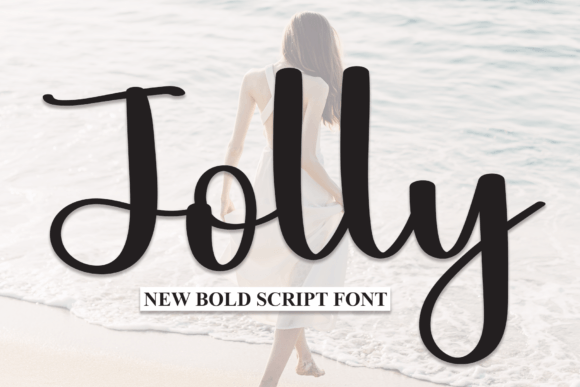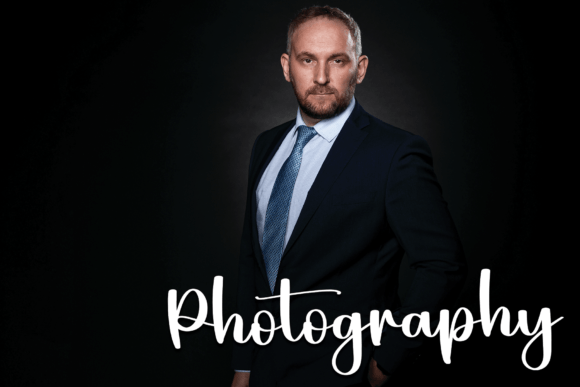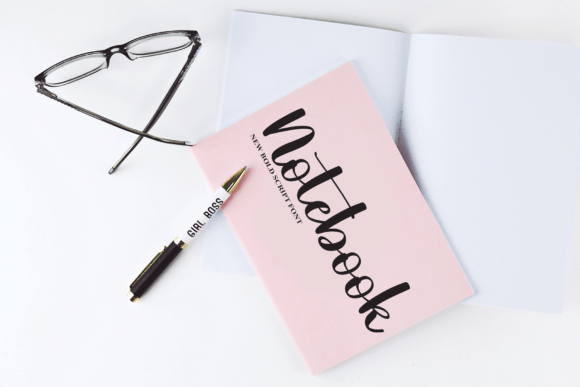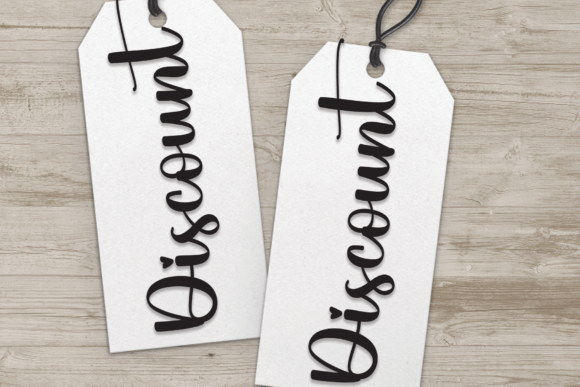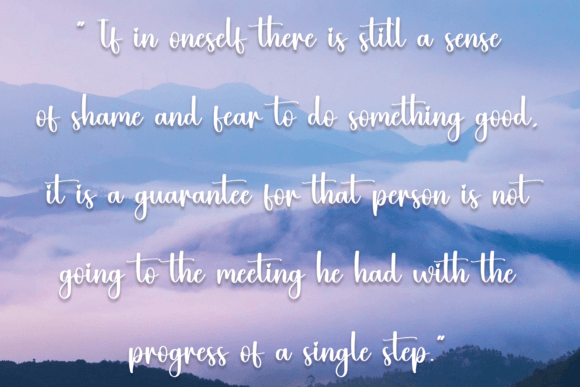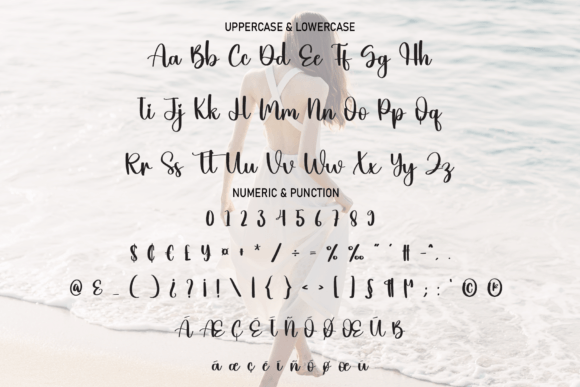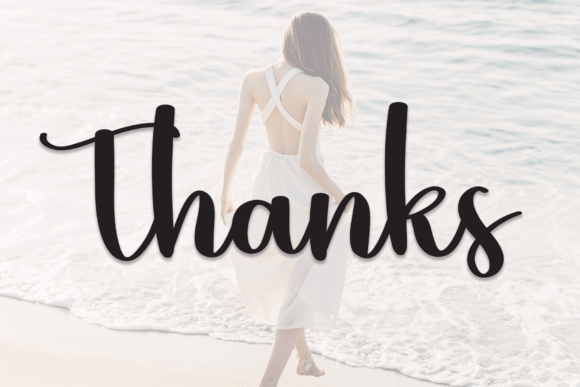
Jolly Font
About Jolly Font
The most recent style of this font introduces letters that are impeccably suited for a myriad of creative applications. Whether you’re envisioning commanding wall displays, enchanting wedding invitations, or eye-catching social media post logos, these letters bring a handwritten touch that adds a distinctive flair to your designs.
In the realm of advertising, these letters make a bold statement, capturing attention and infusing a unique, personalized charm into your campaigns. Imagine them gracing product packaging, where each character contributes to a design that stands out on shelves, leaving a lasting impression on potential customers. Product designs and labels adopt a special, handwritten aesthetic, conveying authenticity and originality.
For photographers, this font serves as an ideal watermark, subtly imprinting images with an air of elegance and individuality. Invitations and stationery, adorned with these letters, exude a warm and personal feel, infusing every word with the artistic allure of handwritten charm.
In essence, these latest style letters are a versatile tool for any project that demands a handwritten taste. Their combination of contemporary flair and authentic charm makes them a perfect choice for branding, packaging, photography, and various personal projects. They bring a unique touch that sets your work apart, creating a memorable impact on your audience.